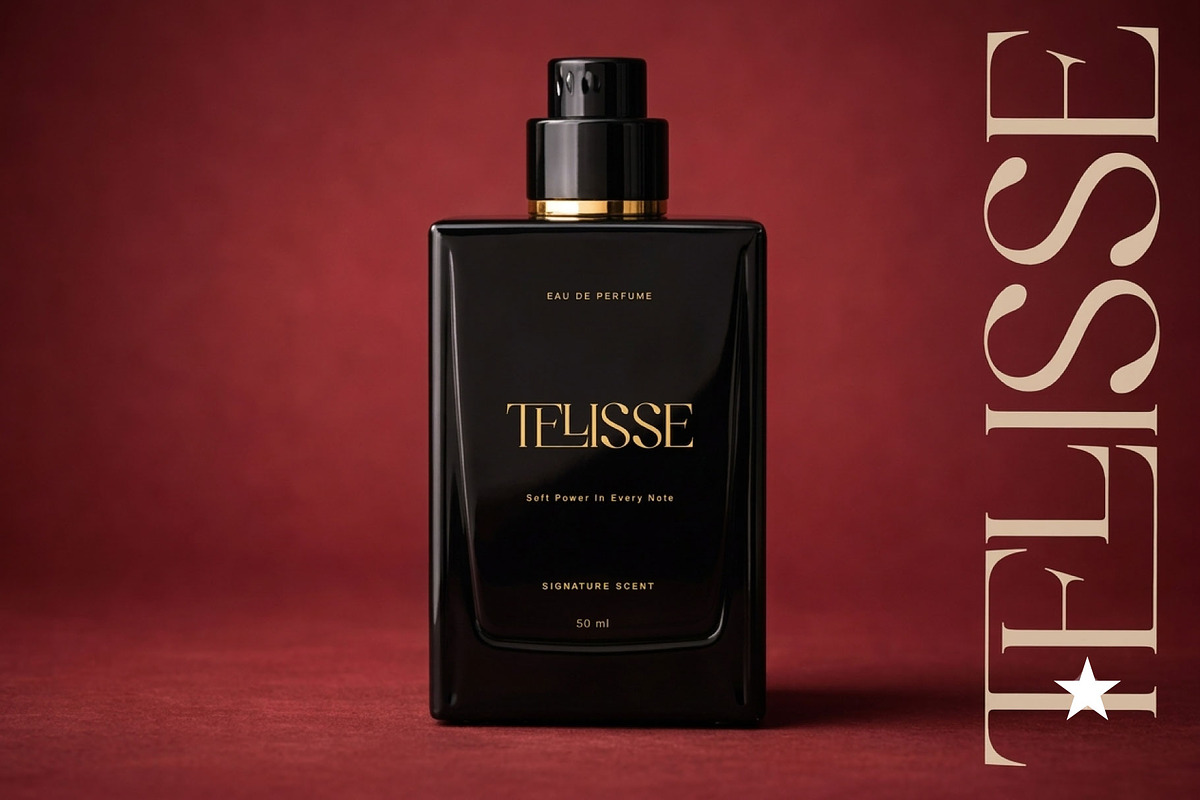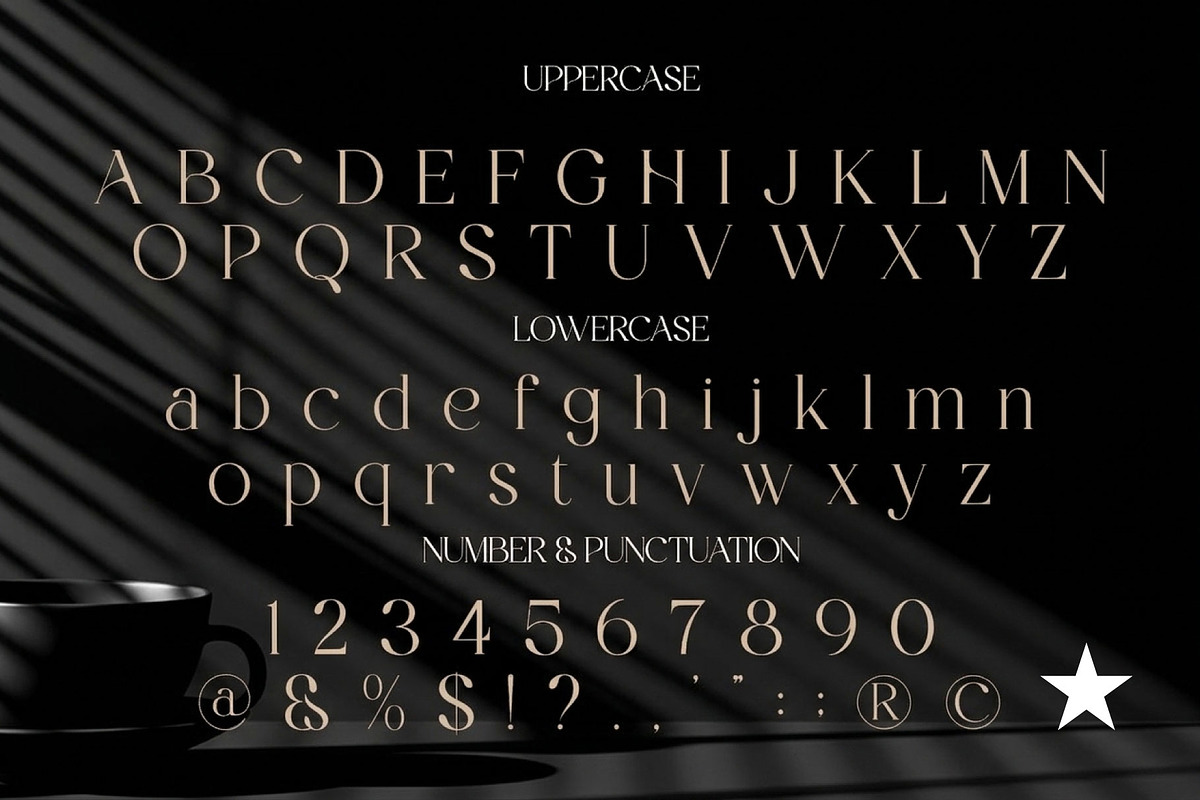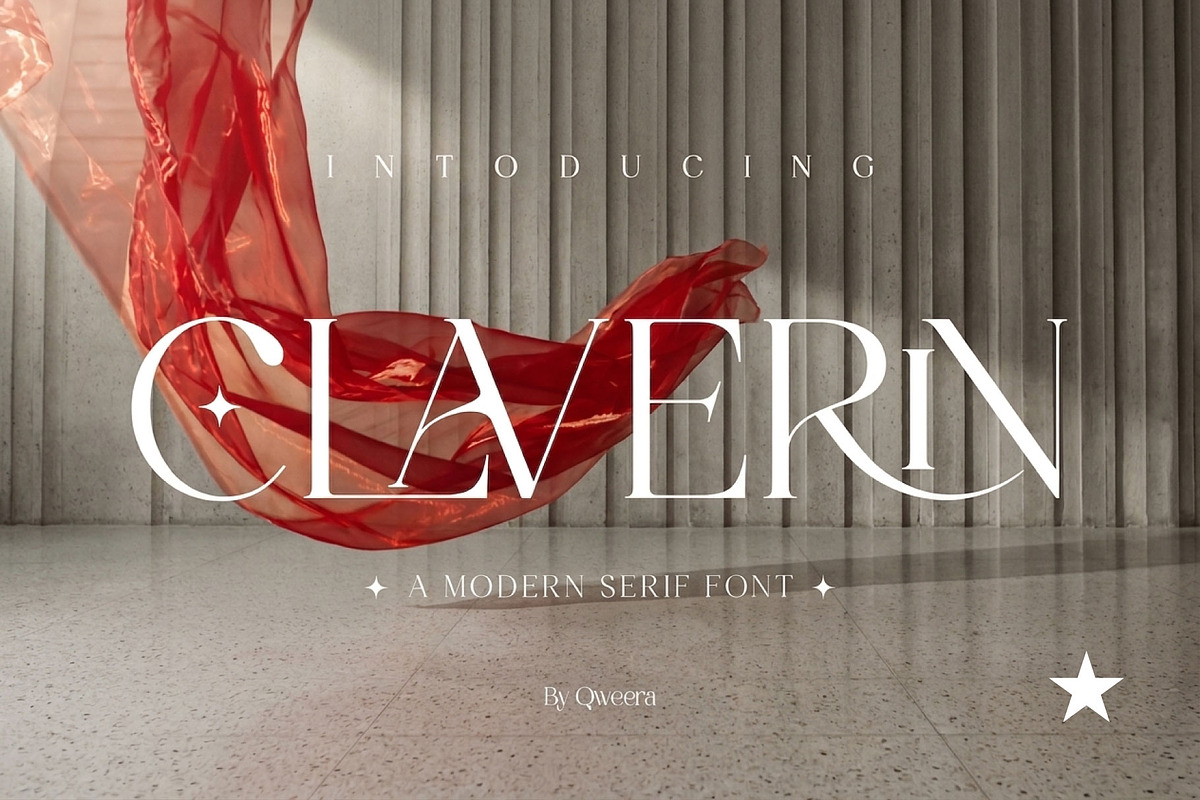
Luxury Aesthetic Branding Claverin
Claverin is a modern luxury serif font crafted for fashion branding, editorial layouts, floral-inspired visuals, beauty packaging, and premium logo design. With its high-contrast structure, elegant curves, and refined display personality, Claverin brings a sophisticated couture feel to every visual project.
Designed for clean yet expressive typography, this font works beautifully for brand identities, magazine headlines, boutique labels, skincare packaging, perfume visuals, wedding stationery, and refined social media campaigns. Its stylish alternates, ligatures, multilingual support, professional kerning, Regular and Italic styles, plus OTF, TTF, WOFF, and WOFF2 formats make it a strong choice for polished branding and premium design work.
Modern high-contrast serif style
Complete uppercase and lowercase characters
Stylish alternates and ligatures
Multilingual character support
Professional kerning for polished typography
Regular and Italic font styles
Luxury editorial and fashion-inspired look